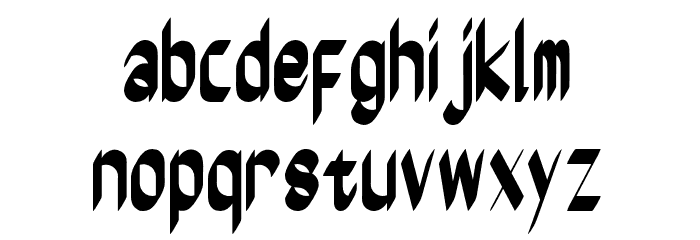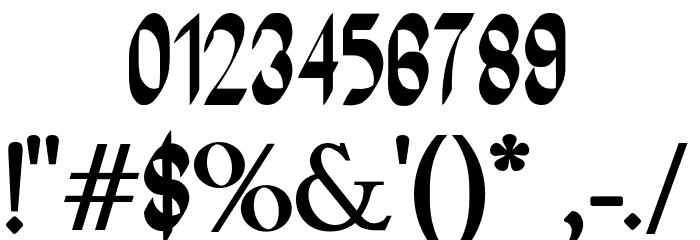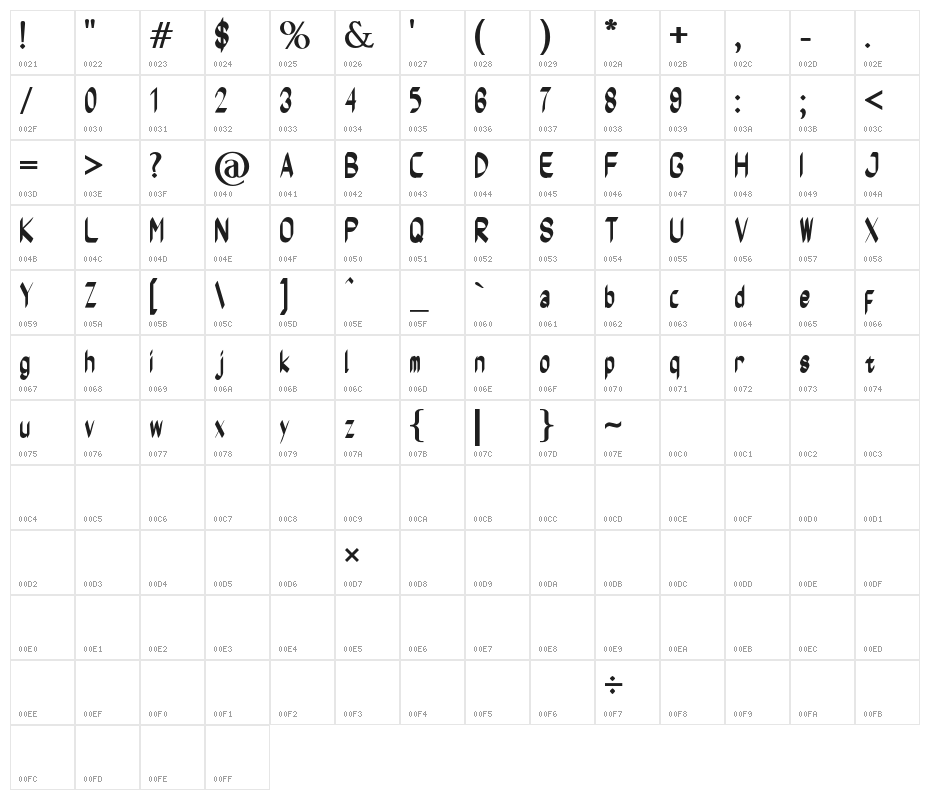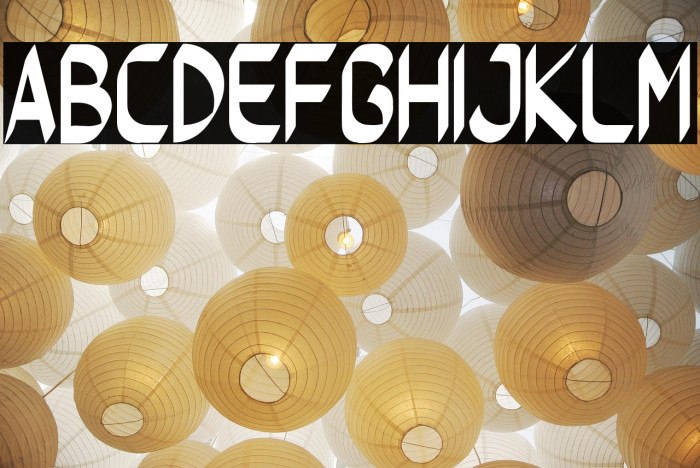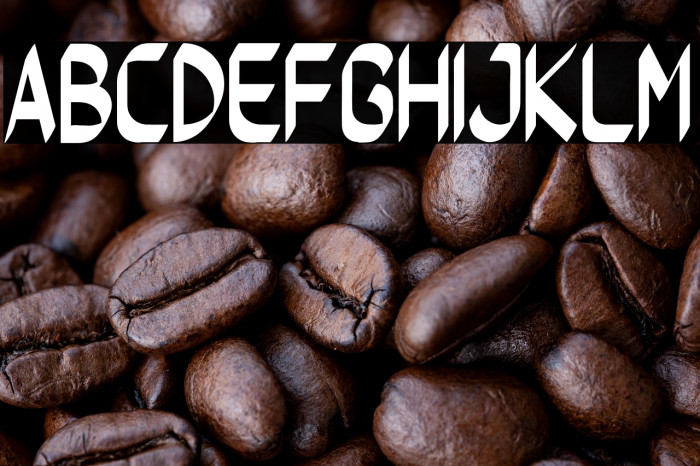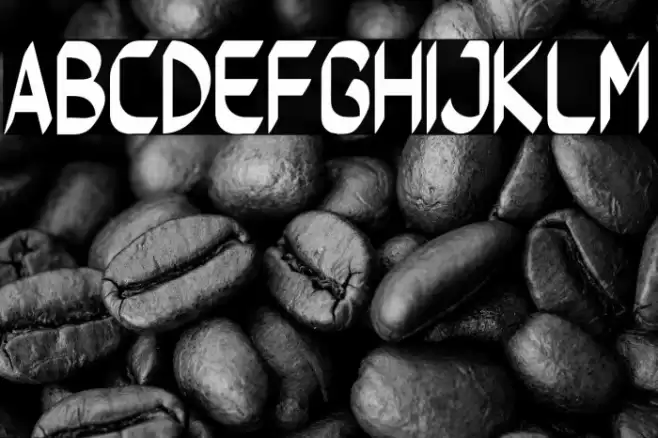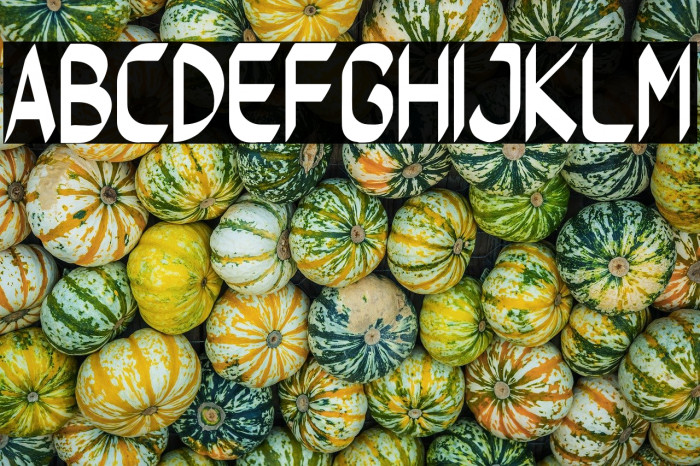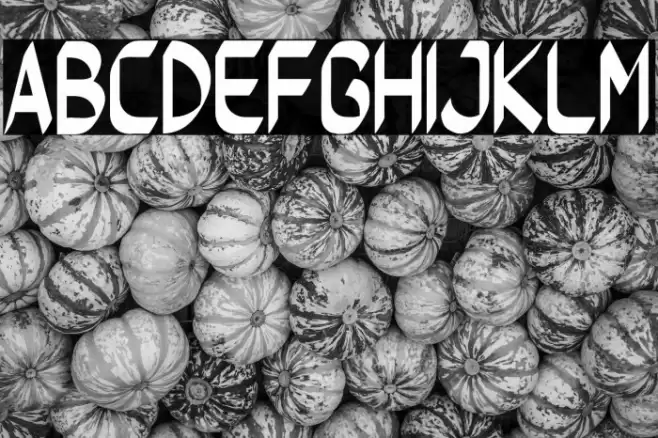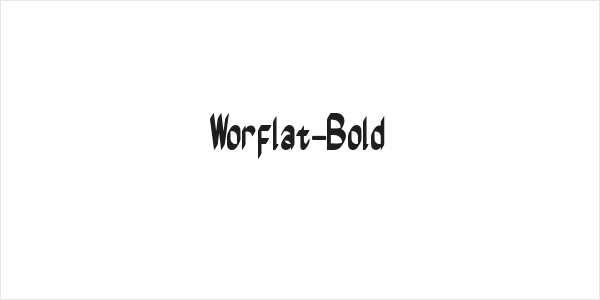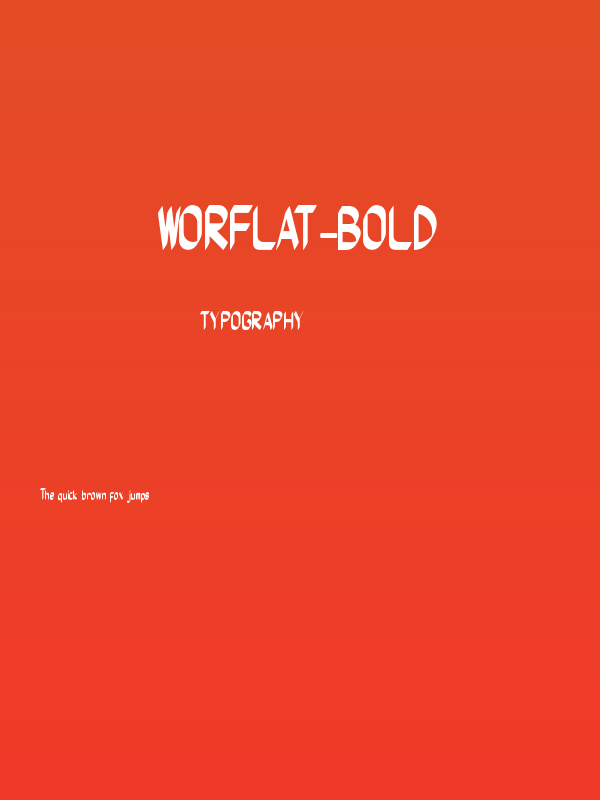
Worflat-Bold Font
This font features a bold, geometric design with sharp angles and a futuristic aesthetic. The uppercase letters are particularly striking, with a unique angularity that gives them a dynamic and modern feel. The lowercase letters maintain this geometric style, ensuring consistency across the typeface. Numbers and special characters are designed with the same boldness and angularity, making them stand out. The overall appearance is both eye-catching and versatile, suitable for a variety of design applications.
- Proposed Projects: Ideal for branding, posters, video game graphics, and sci-fi themed projects.